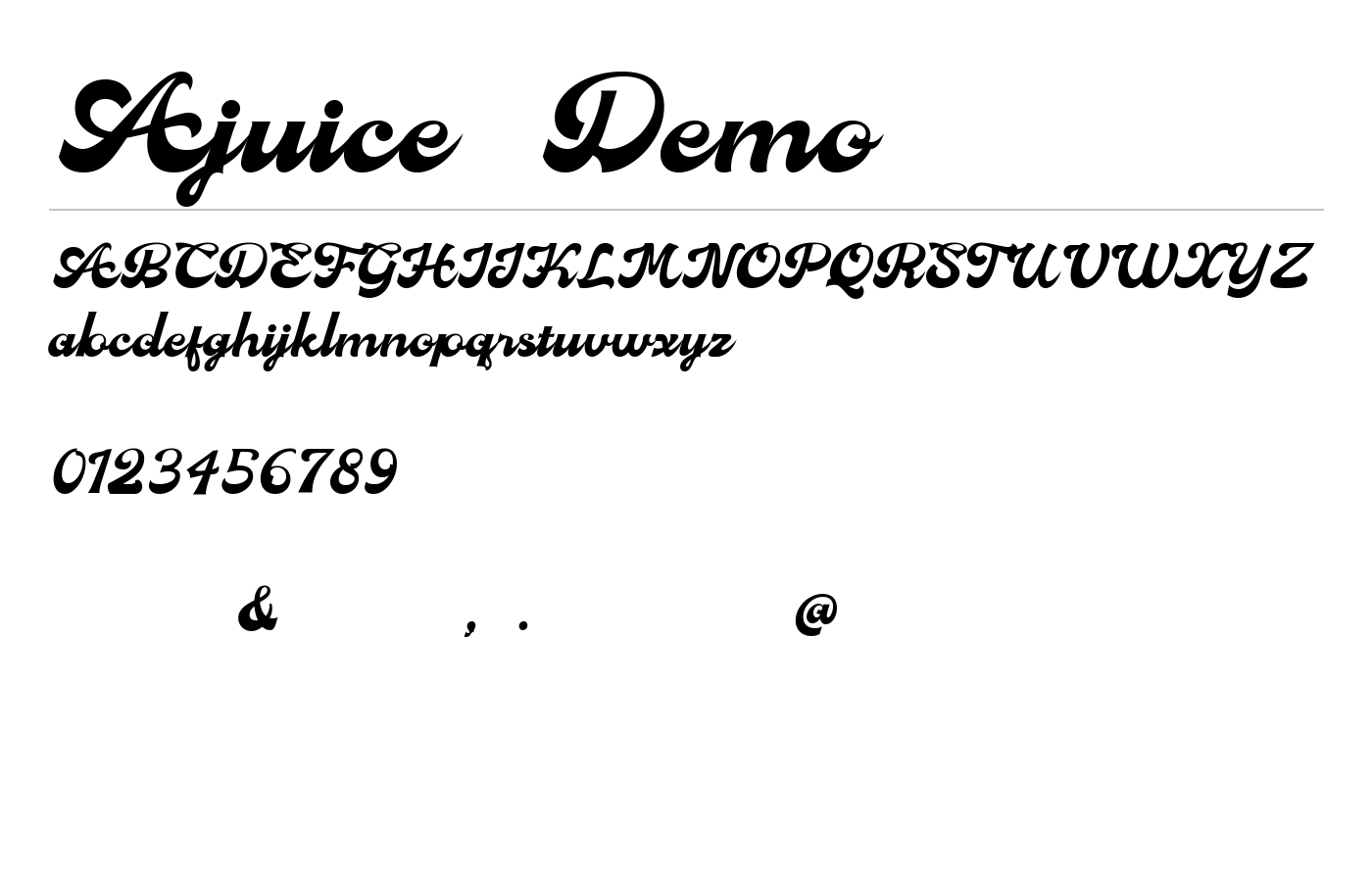
Ajuice_Demo is a bold, cursive script font with a lively, vintage charm, featuring smooth, thick strokes and elegant swashes that give it a distinctive, flowing character. Its moderately high contrast and playful yet polished style make it ideal for logos, branding, and headlines where a warm, inviting, and stylish impression is needed. This font works best in creative and retro-inspired designs, bringing a sense of personality and flair, especially for fashion, lifestyle, or boutique brands.
Ajuice_Demo Font
About Ajuice_Demo Font